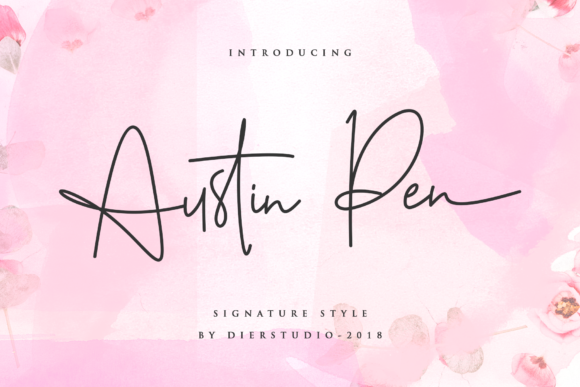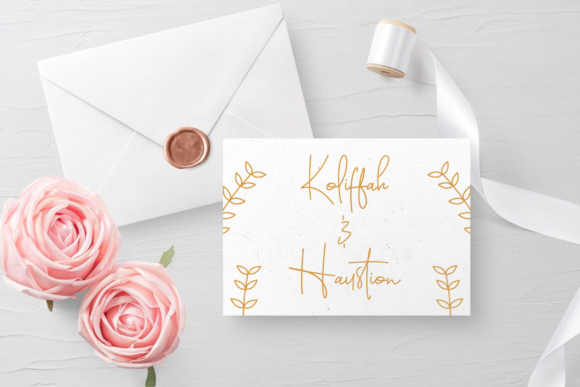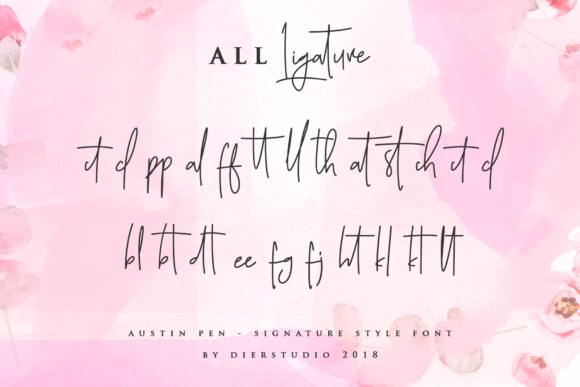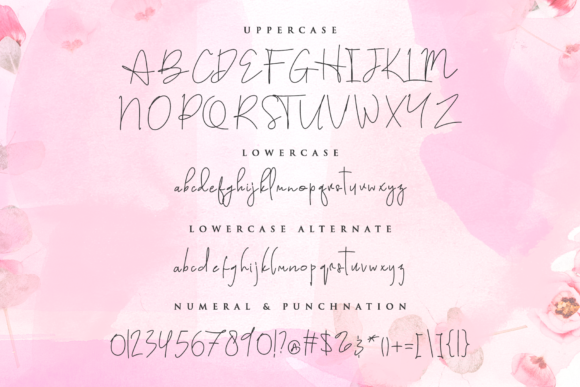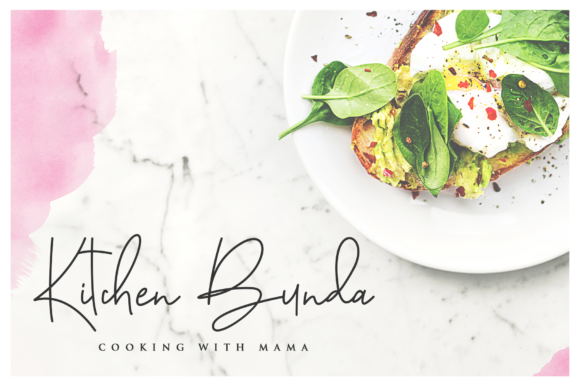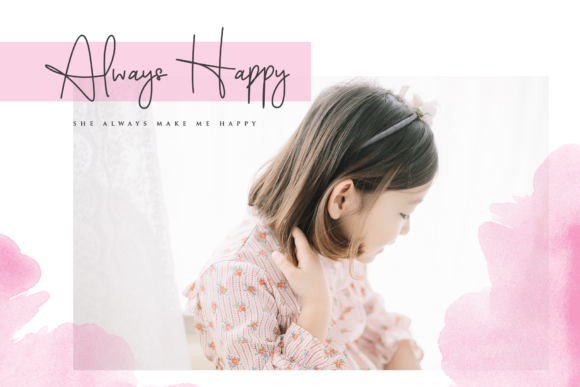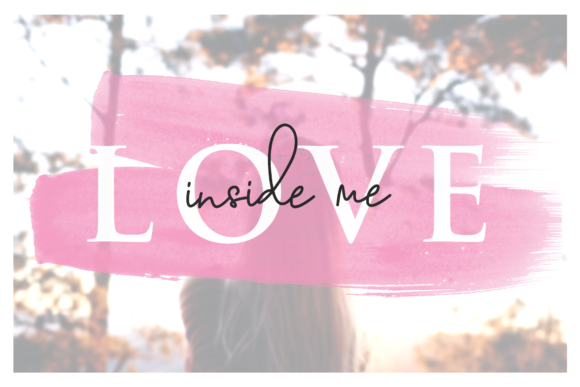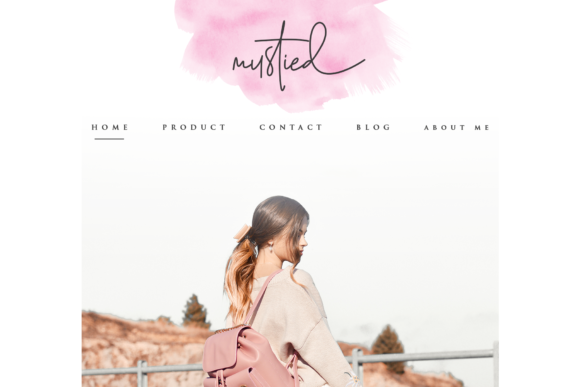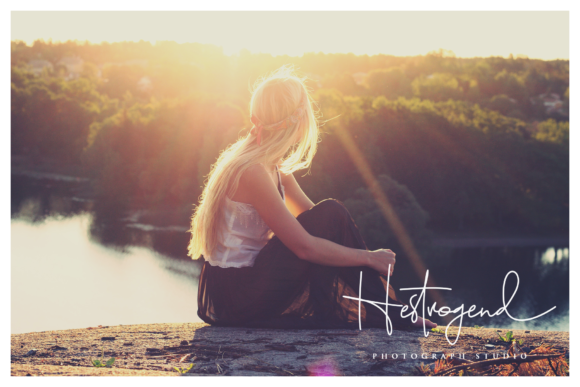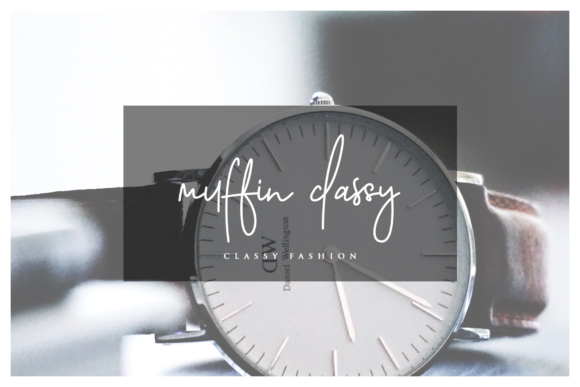
Austin Pen Font
The Austin Pen is a handwritten signature script with a natural & stylish flow. This authentic handwriting is perfect for adding a classic and elegant feel to your designs.